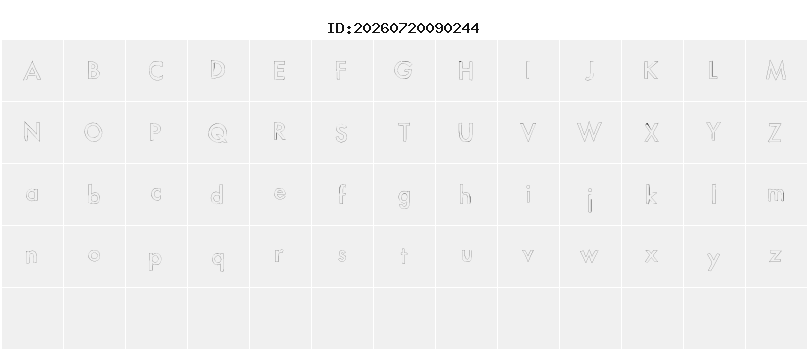
• Font Name: FutureLines
• Designer: Max Infeld Xerographer Fonts
• Manufacturer: Xerographer Fonts
• Description: Made at Xerographer Studios Los Angeles
About FutureLines.ttf
FutureLines.ttf is a modern, elegant sans-serif font designed for ultimate readability and visual harmony. Perfect for branding, headlines, web design, and print materials.